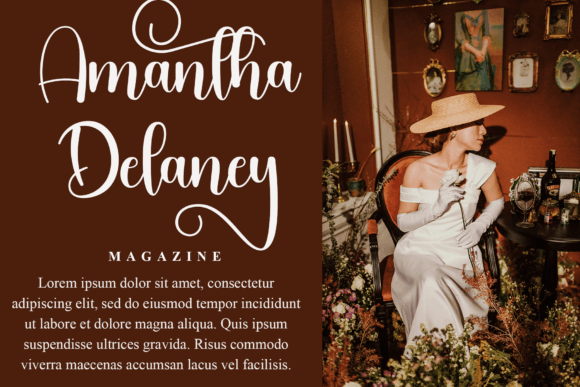
Introducing Beauty Night Font: Elevate Your Designs with Elegance and Charm
In the world of typography, fonts play a crucial role in conveying the tone and personality of a brand, design, or message. Among the numerous fonts available, Beauty Night Font stands out for its unique blend of elegance, charm, and sophistication. This stylish font is designed to add a personal touch to various design projects, including invitations, branding, social media, and more. In this article, we’ll explore the features, benefits, and uses of Beauty Night Font, and how it can elevate your designs to the next level.
The Characteristics of Beauty Night Font
Beauty Night Font is a carefully crafted typeface that exudes luxury and refinement. Its fluid strokes and natural flow create a captivating, sophisticated look that is sure to grab attention. The font’s design is characterized by:
- Fluid Strokes: The font features smooth, flowing strokes that give it a sense of elegance and poise.
- Natural Flow: The natural flow of the font creates a sense of movement and fluidity, making it perfect for designs that require a touch of dynamism.
- Sophisticated Look: The font’s overall design is sophisticated and refined, making it suitable for high-end branding, luxury products, and premium services.
The Benefits of Using Beauty Night Font
Beauty Night Font offers numerous benefits for designers, marketers, and businesses looking to elevate their designs. Some of the key advantages of using this font include:
- Unique Personality: The font’s distinctive style and charm can help you establish a unique brand identity and stand out from the competition.
- Versatility: Beauty Night Font is versatile and can be used across various design projects, from invitations and branding to social media and advertising.
- Ease of Use: The font is easy to read and works well in both digital and print formats, making it a convenient choice for designers.
- Emotional Connection: The font’s warm and inviting style can help create an emotional connection with your audience, making your designs more relatable and engaging.
Perfect for Adding a Personal Touch
Beauty Night Font is ideal for designers and businesses looking to add a personal touch to their designs. Whether you’re creating:
- Invitations: Use Beauty Night Font to create beautiful, elegant invitations for weddings, parties, and special events.
- Branding: Establish a strong brand identity with this font, perfect for luxury brands, premium products, and high-end services.
- Social Media: Elevate your social media designs with Beauty Night Font, and make your posts stand out from the crowd.
Tips for Using Beauty Night Font Effectively
To get the most out of Beauty Night Font, consider the following tips:
- Pair with Complementary Fonts: Combine Beauty Night Font with complementary fonts to create visual interest and hierarchy.
- Experiment with Colors: Try out different color schemes to find the perfect match for your design and brand.
- Pay Attention to Spacing: Ensure adequate spacing between letters and lines to maintain readability and visual flow.
- Use it Consistently: Use Beauty Night Font consistently across your designs to establish a strong brand identity.
Beauty Night Font is a stylish and elegant typeface that can elevate your designs to new heights. Its fluid strokes, natural flow, and sophisticated look make it perfect for adding a personal touch to invitations, branding, social media, and more. With its versatility, ease of use, and emotional connection, this font is sure to become a favorite among designers and businesses. So why wait? Discover the beauty of Beauty Night Font and take your designs to the next level.
- What is Beauty Night Font? Beauty Night Font is a stylish font designed to add elegance and charm to various design projects.
- Is Beauty Night Font easy to read? Yes, Beauty Night Font is designed to be easy to read, making it suitable for both digital and print formats.